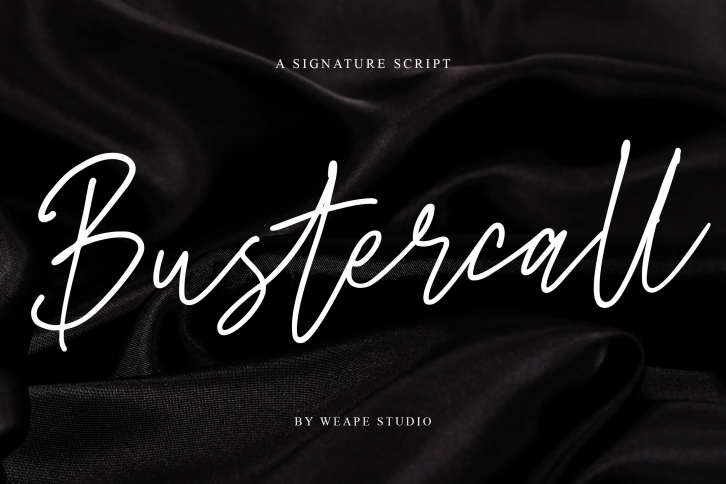
Introducing Bustercall Signature Script. This is a stylish modern calligraphy font with casual handwriting. It is perfect for branding, signature logo, wedding invitation, photography, and you can use and enjoy Bustercall, for promotional material and anything.
Bustercall includes full set of gorgeous uppercase and lowercase letters, numerals, a large range of punctuation and ligatures. All letters giving realistic hand-lettered style.